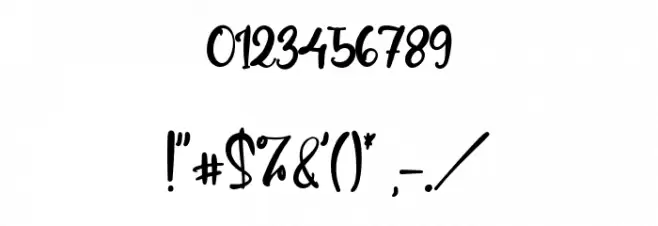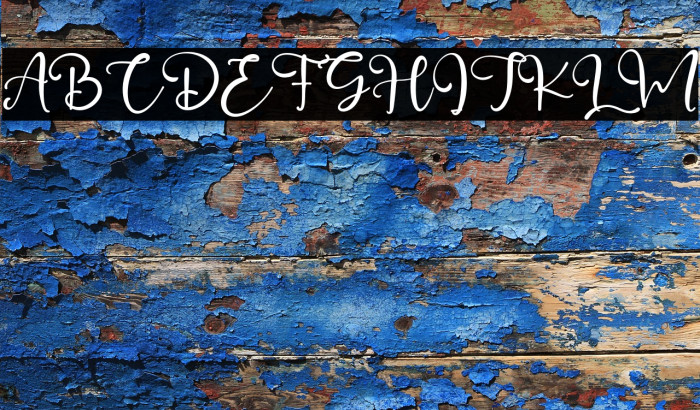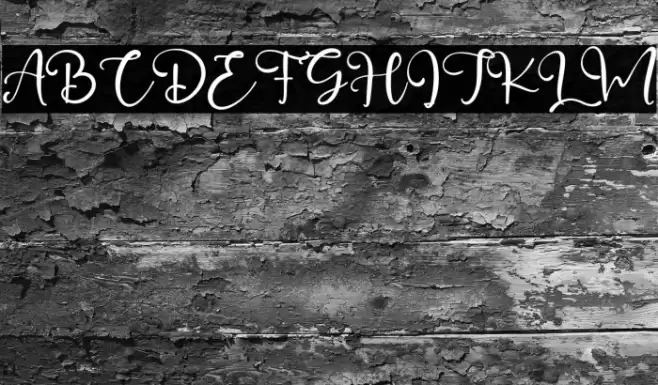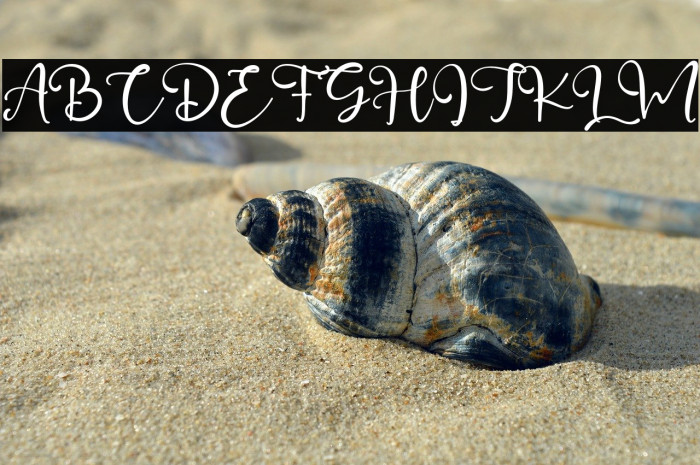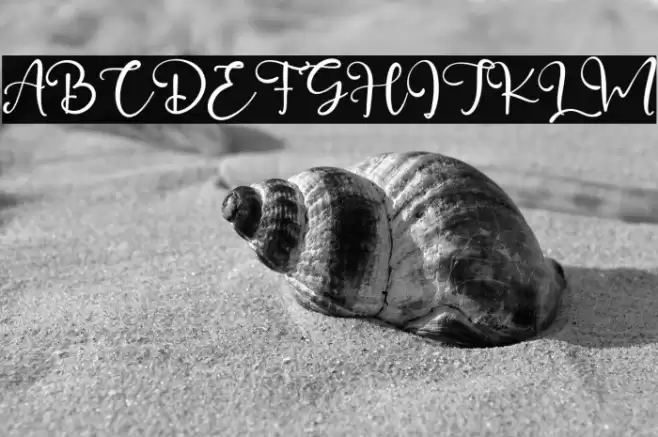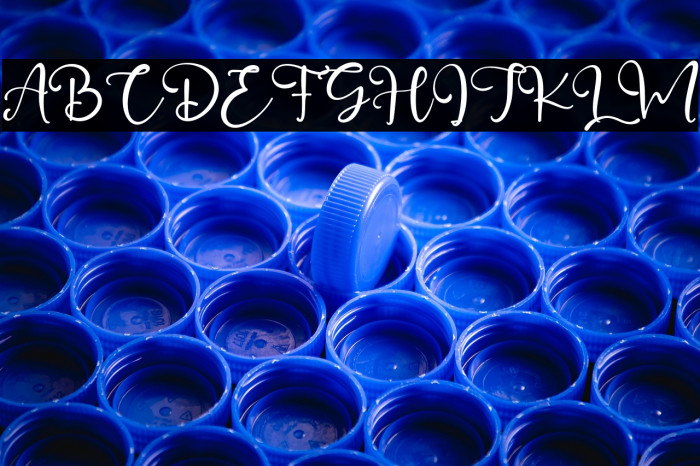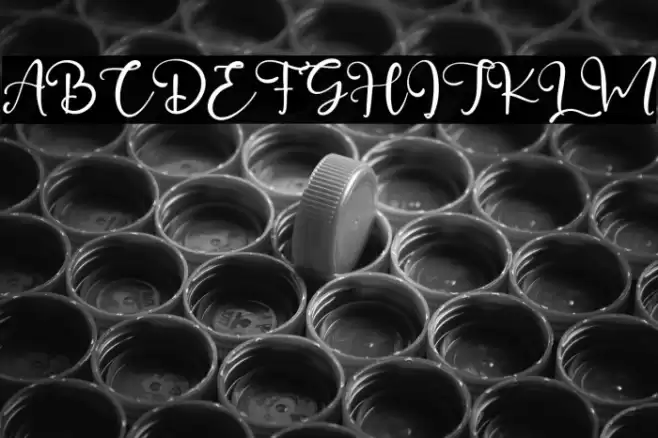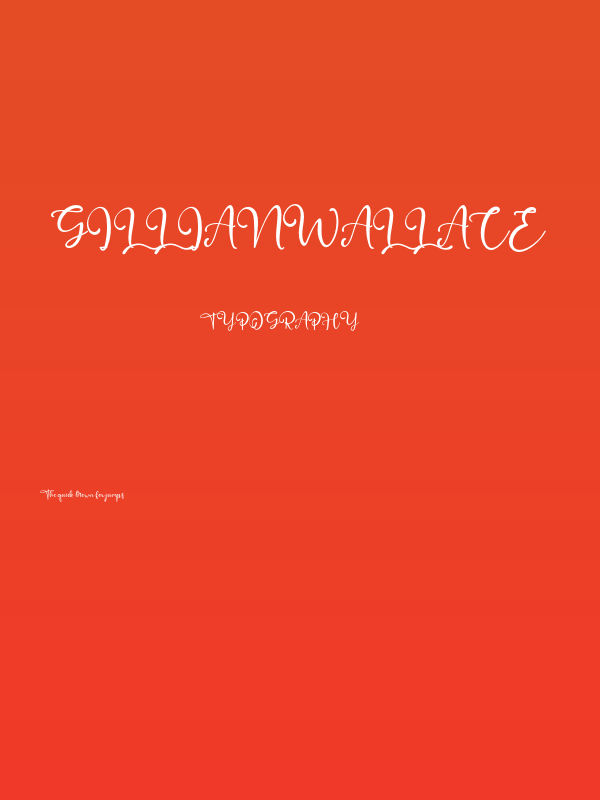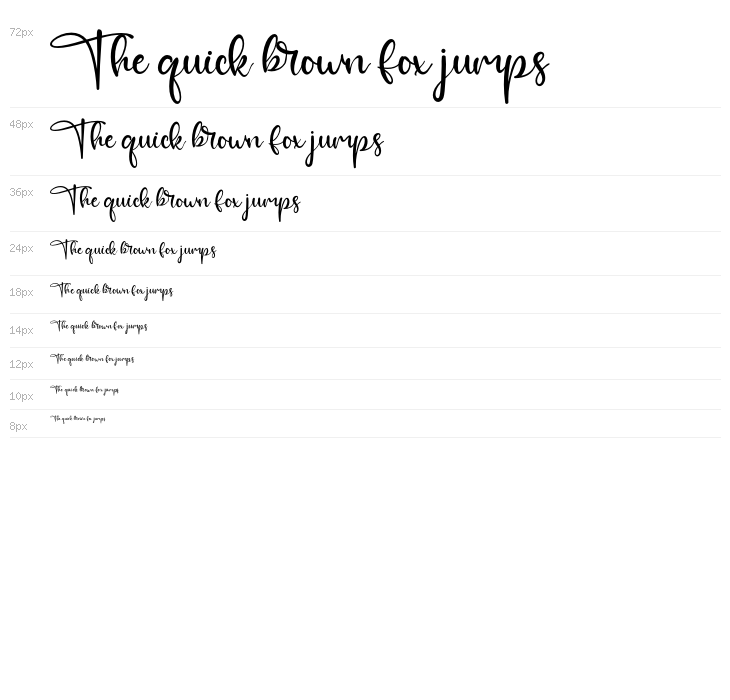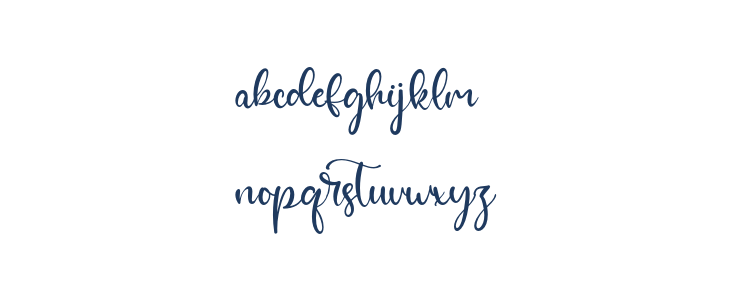
GillianWallace Font
GillianWallace Description
This font exudes a charming and elegant handwritten style, characterized by its fluid and cursive letterforms. The uppercase letters are gracefully connected, while the lowercase letters maintain a consistent flow, enhancing the overall aesthetic appeal. The numerals are clear and distinct, complementing the script style. Special characters are crafted with the same attention to detail, ensuring versatility in various design contexts. The font's playful yet sophisticated nature makes it suitable for a wide range of creative projects.